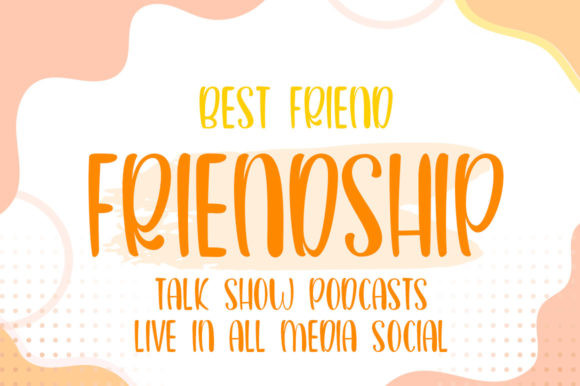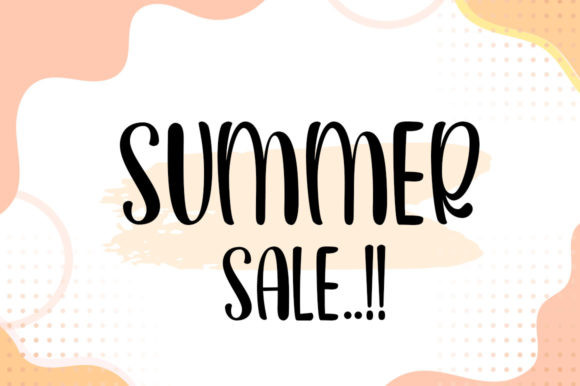
Courtesy Font
Courtesy is a sweet and quirky handwritten font. It will add an incredibly joyful touch to your designs. Add it to your most creative ideas and notice how this font makes them come alive!